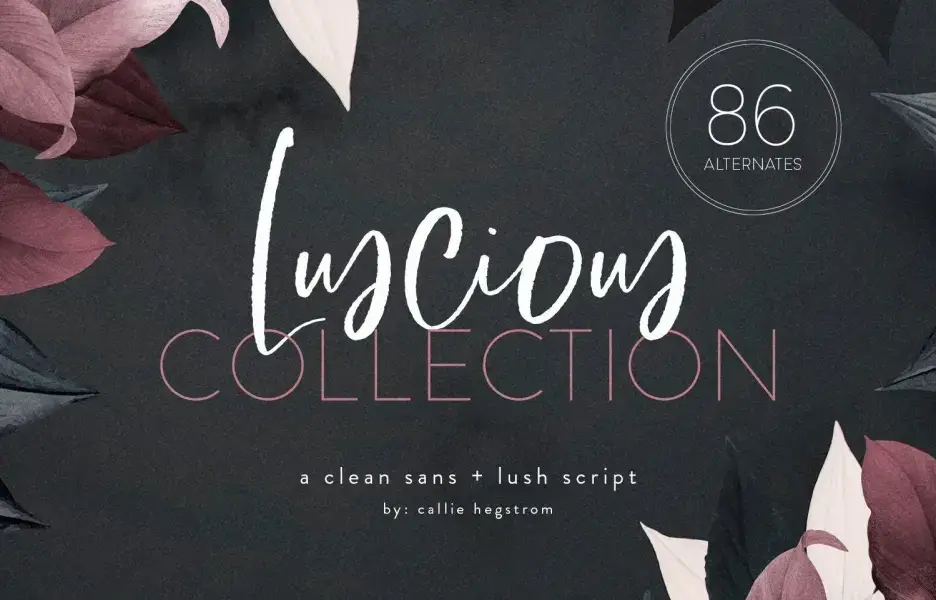
The Luscious Font Collection offers a stunning array of typefaces designed to elevate your creative projects. This collection includes a variety of styles, from elegant scripts to bold display fonts, ensuring you have the perfect typography for any occasion.
- Multiple font styles: serif, sans-serif, script, and display
- Various weights: light, regular, bold, and extra bold
Each font in this collection is meticulously crafted, providing smooth curves and clear legibility. Ideal for branding, logos, web design, print materials, and user interfaces, these fonts will make your text stand out.